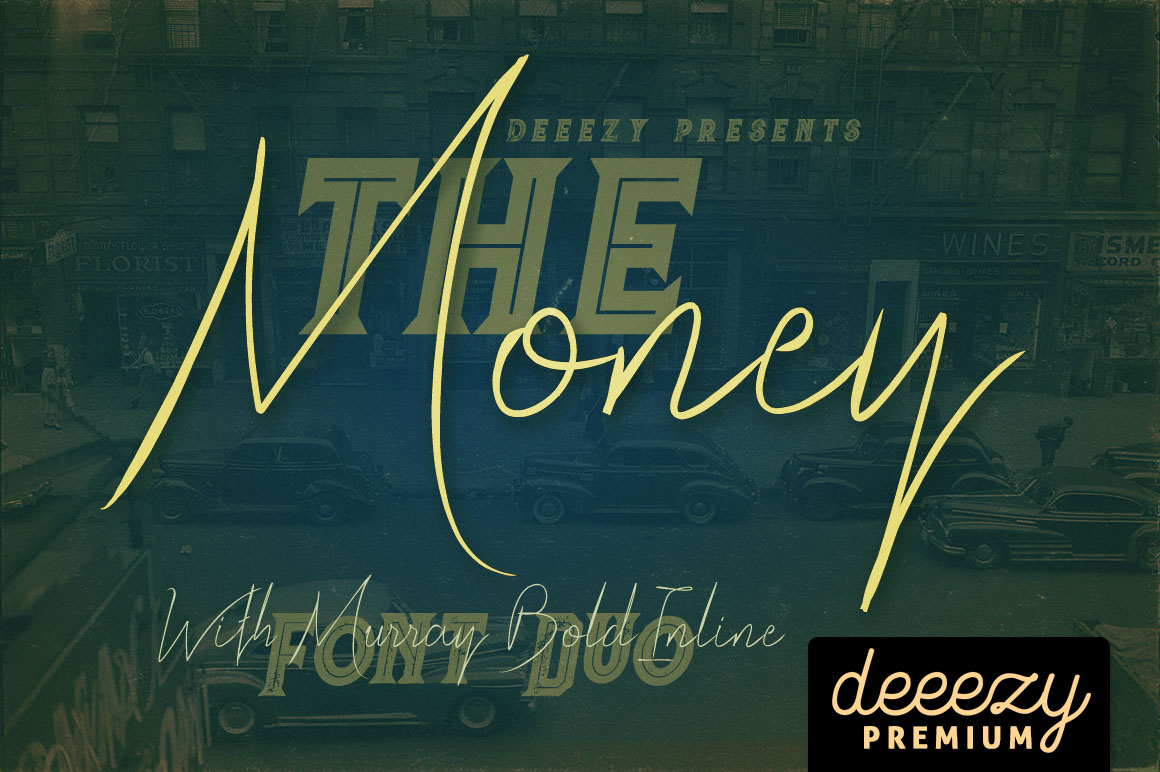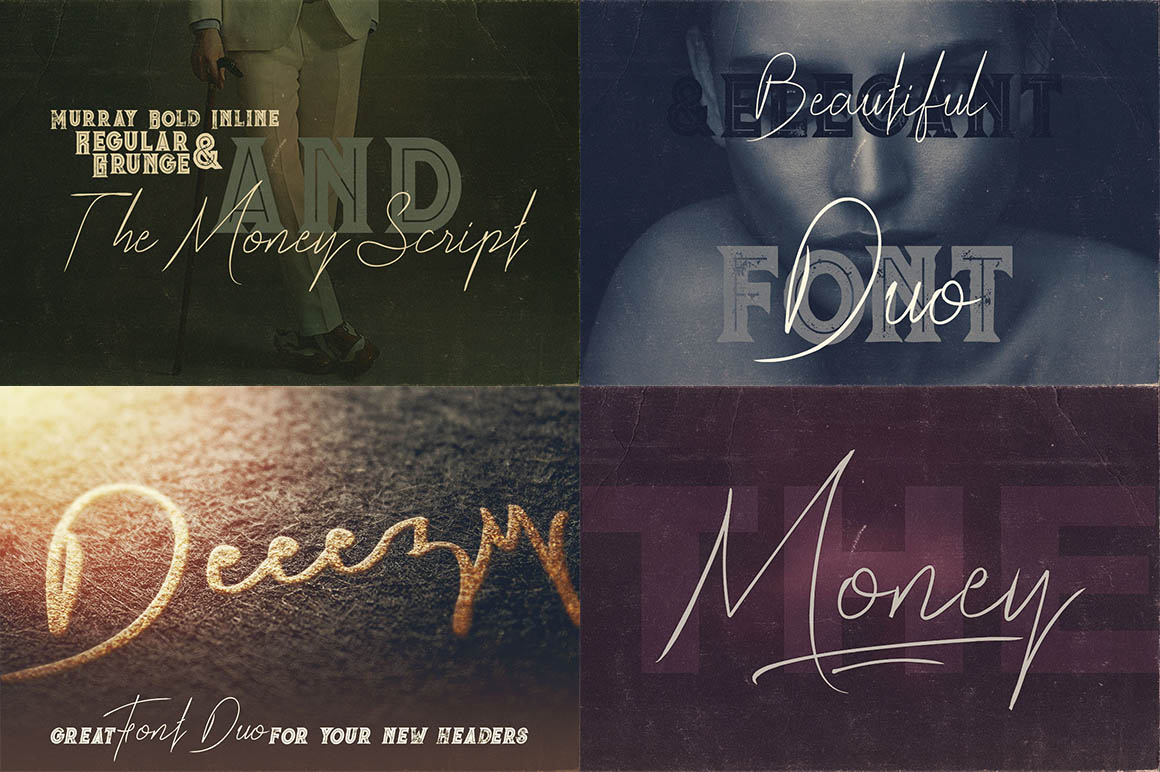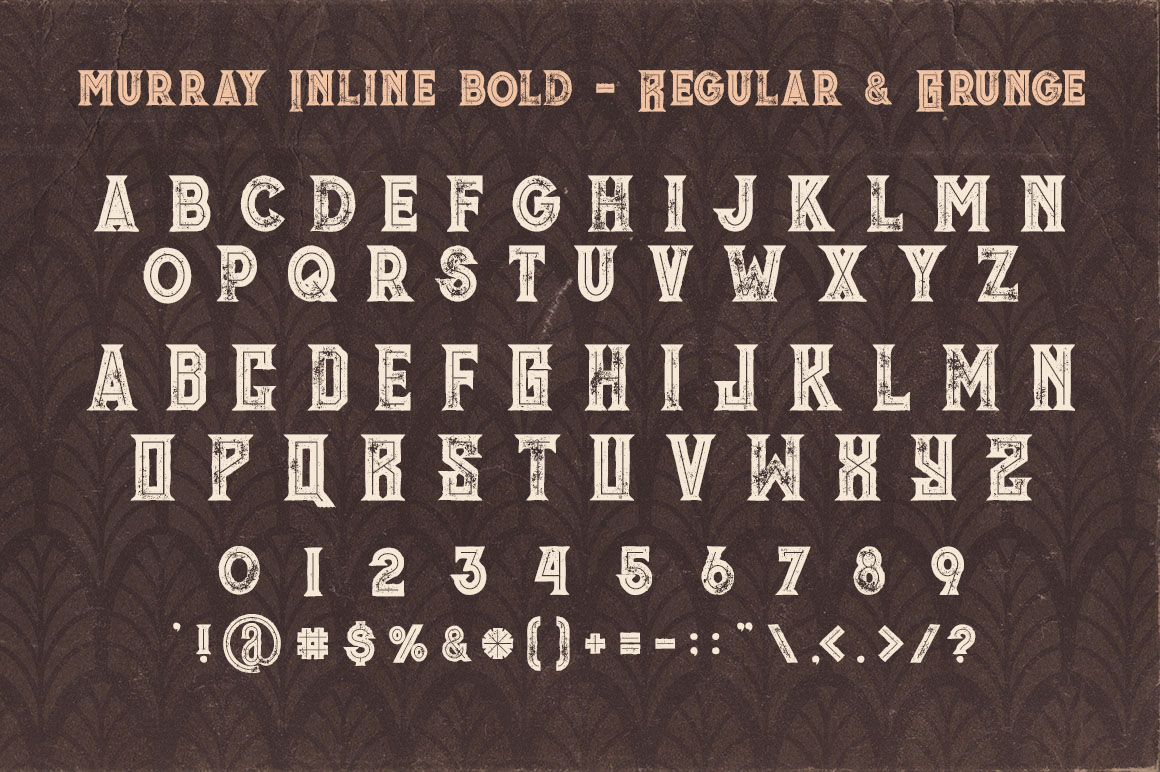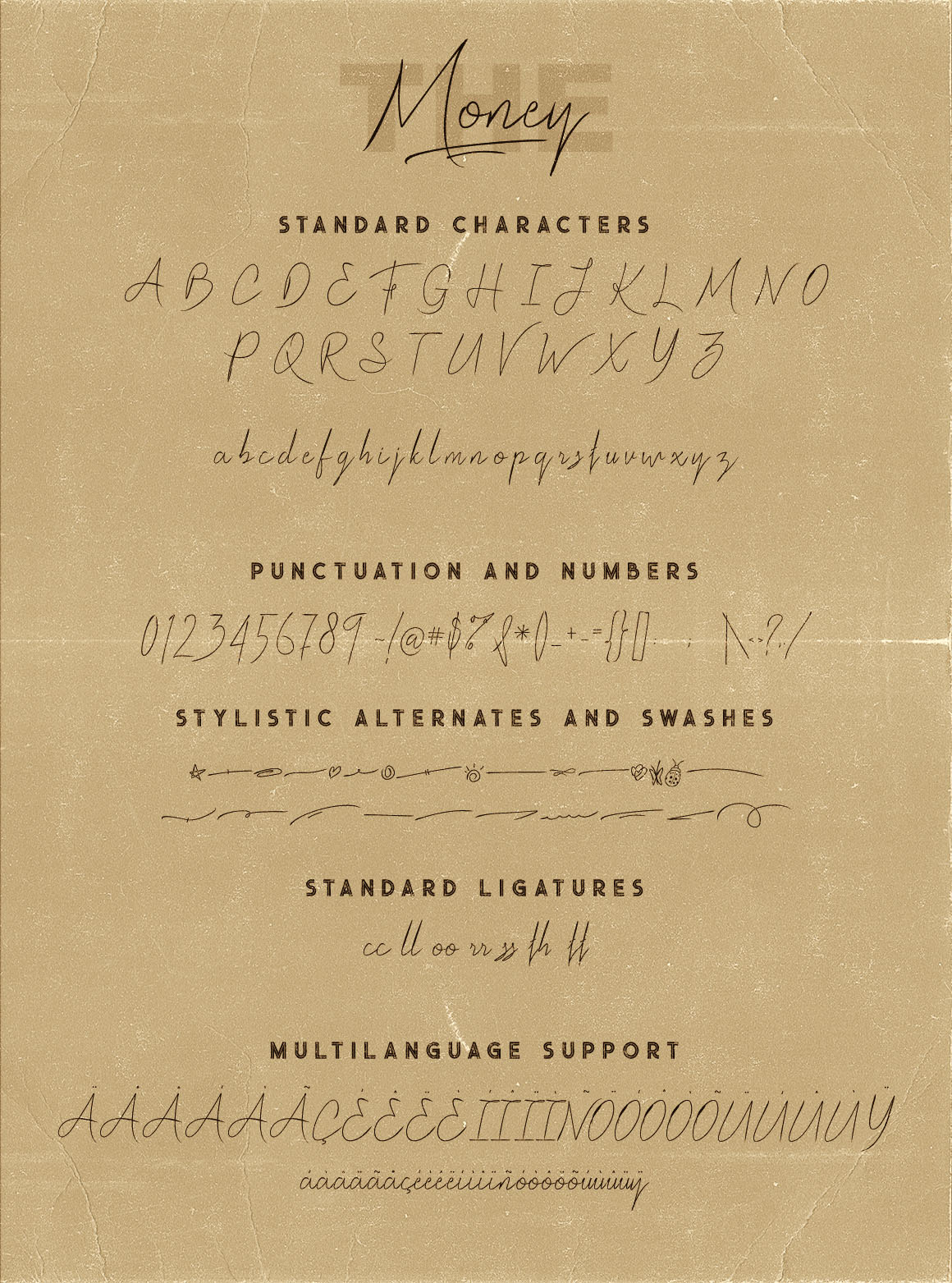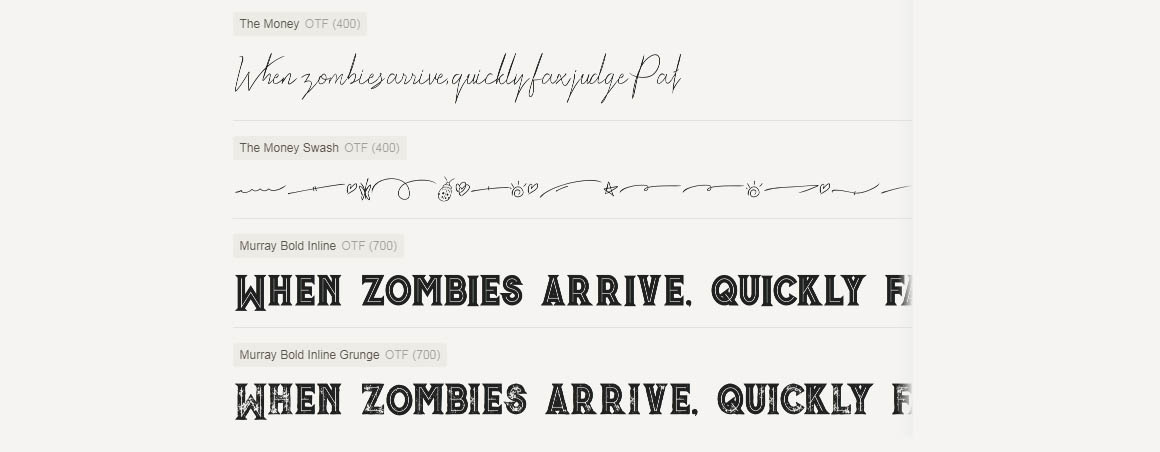
9. The Money Font Duo by Deeezy
Cool handwritten & creative style font duo for your new projects. First font is modern & thin line style handwritten script font with multi language support and lot of stylistic alternates. Second font is inline style display font with regular & grunge version (without multi language support).